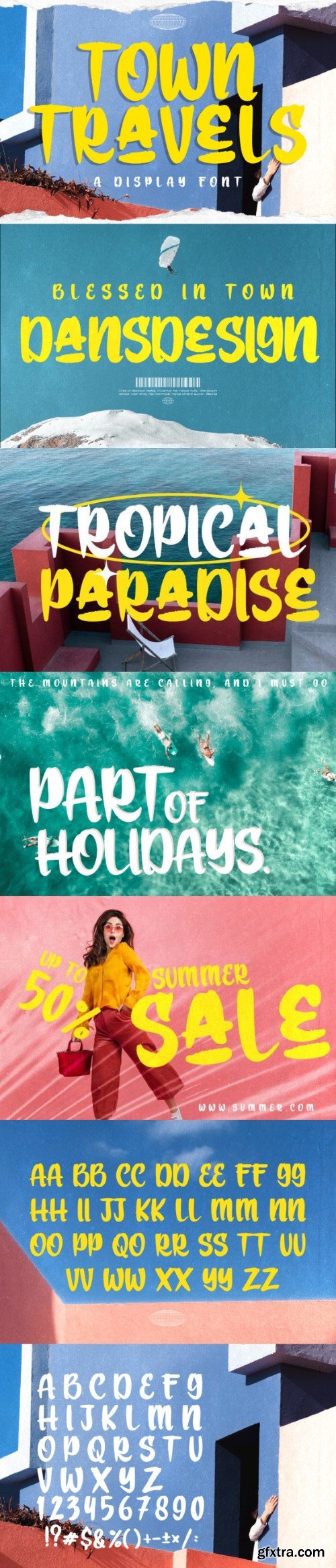
城镇旅行字体
Town Travels is a sleek and fashionable display font that screams with modern flair. Its strong, sharp letterforms convey a unique edginess, creating an attention-grabbing visual effect. Perfect for projects that require a modern and stylish vibe, Town Travels adds a bold and trendy aesthetic to your designs.